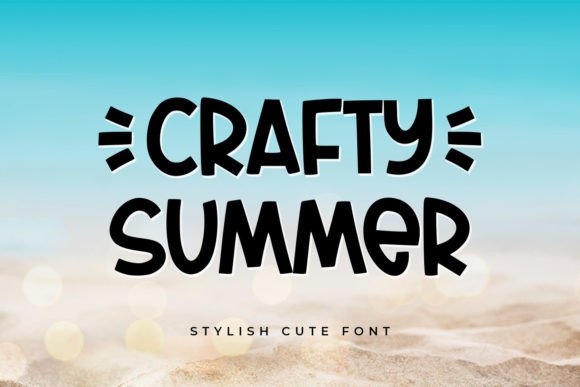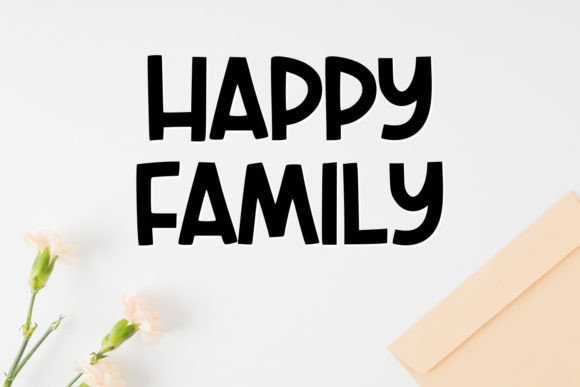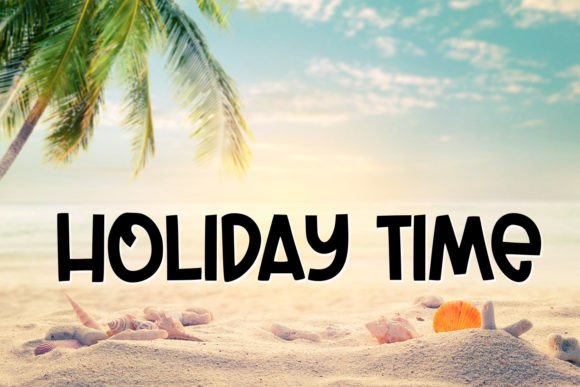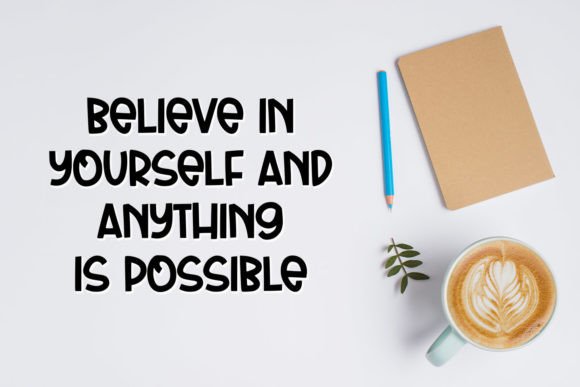
About the Crafty Summer Font
Add a touch of class to your work with the Crafty Summer Font, a truly exceptional typeface. introducing
CRAFTY SUMMER
– stylish cute font-
CRAFTY SUMMER is cute and playful font.
It is great for branding, quotes, logos, t-shirt designs, tote bag designs, cards, banners, social media, and more.
Features:
– Uppercase style
– Numeral
– Multilingual Support
– Punctuation
– PUA encoded
Crafty Summer’s playful character makes it ideal for projects needing a fun, approachable feel. It excels in headlines, short text blocks, logos, and social media graphics. Consider it for branding playful products, children’s books, or summer-themed events. Avoid using it for large bodies of text or UI elements where readability is paramount; its decorative nature can hinder legibility in extended use.
Pair Crafty Summer with a clean sans-serif like Open Sans for a balanced contrast, or a classic serif such as Merriweather for a touch of sophistication. For a more whimsical feel, consider pairing it with a script font like Great Vibes, but use it sparingly to avoid visual overload.
The font’s overall personality is undeniably cheerful and informal, lending itself well to brands emphasizing youthfulness, creativity, and lightheartedness.